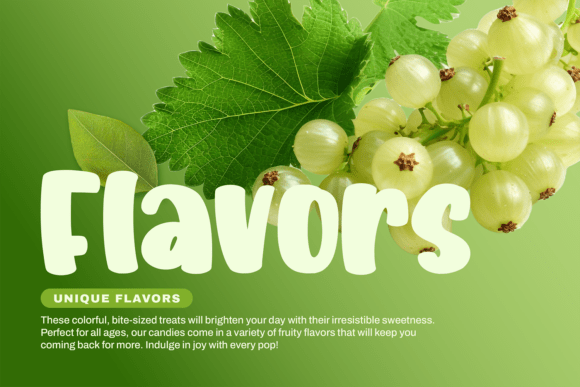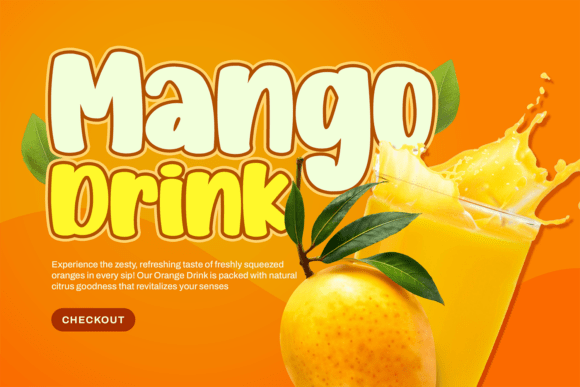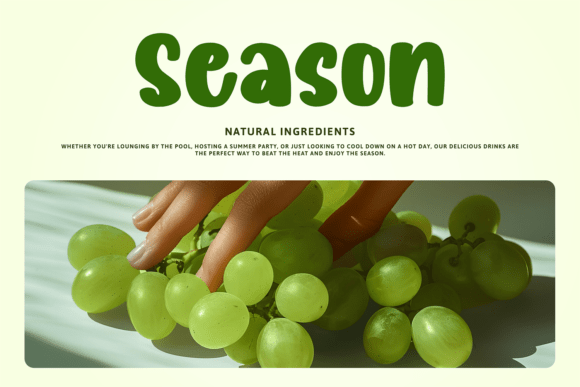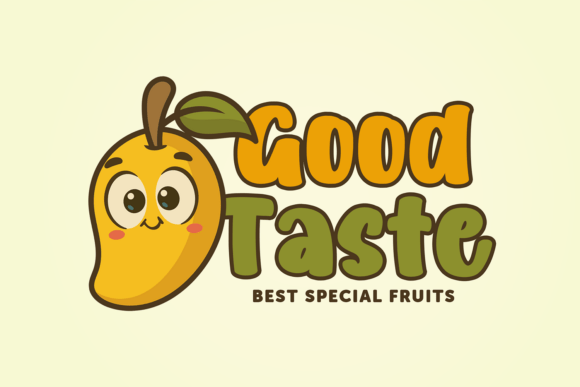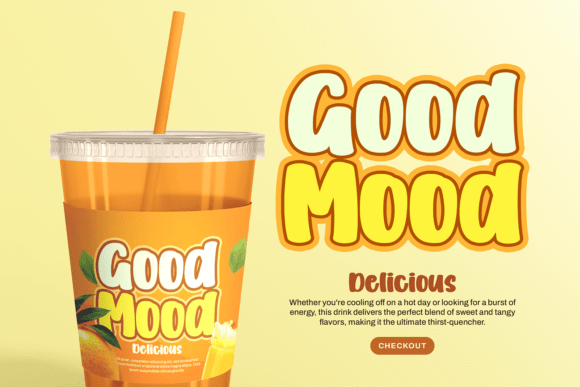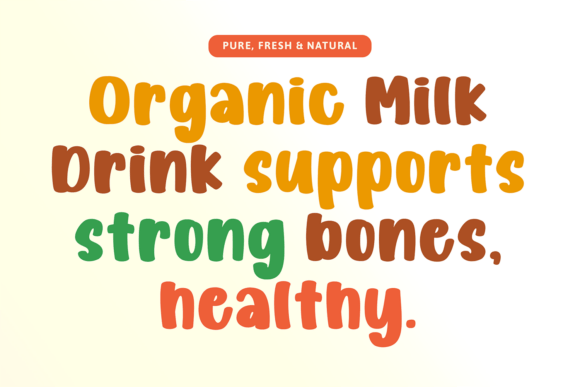
Unleash Your Creativity with Grapefruit Font: The Ultimate Display Typeface
In the world of typography, few fonts manage to strike a balance between boldness and playfulness quite like Grapefruit Font. This charming display typeface is designed to capture attention and infuse your creative projects with a touch of fun and freshness. Whether you’re a designer, crafter, or simply someone who appreciates the art of typography, Grapefruit Font is sure to delight.
The Perfect Blend of Boldness and Playfulness
Grapefruit Font is more than just a pretty face – it’s a versatile typeface that combines the best of both worlds. Its bold presentation makes it perfect for headlines, titles, and attention-grabbing displays, while its playful, rounded shapes add a touch of whimsy and friendliness. This unique blend of characteristics makes Grapefruit Font an ideal choice for a wide range of creative projects, from food and beverage branding to vibrant packaging designs.
Endless Possibilities for Creative Projects
So, what can you do with Grapefruit Font? The possibilities are endless! Here are just a few ideas to get you started:
- Food and Beverage Branding: Use Grapefruit Font to create eye-catching logos, labels, and packaging for your favorite foods and drinks. Its friendly, approachable vibe is sure to appeal to customers of all ages.
- Children’s Products: Add a touch of whimsy and fun to your children’s products, such as toys, books, and educational materials. Grapefruit Font is perfect for kids’ brands that want to convey a sense of playfulness and adventure.
- School-Themed Materials: Create engaging and interactive learning materials, such as posters, worksheets, and activity sheets, with Grapefruit Font. Its bold, cheerful design is sure to capture the attention of students and teachers alike.
- Digital Banners and Posters: Use Grapefruit Font to create stunning digital banners and posters that grab attention and drive engagement. Its bold, colorful design is perfect for advertising, promotions, and events.
Why Choose Grapefruit Font?
So, what sets Grapefruit Font apart from other display typefaces? Here are just a few reasons why designers and crafters love working with this charming font:
- Unique Character: Grapefruit Font has a one-of-a-kind personality that sets it apart from more traditional typefaces. Its bold, playful design is sure to make your projects stand out.
- Versatility: Whether you’re working on a food label, a children’s book, or a digital banner, Grapefruit Font is the perfect choice. Its versatility makes it easy to use in a wide range of creative projects.
- Easy to Read: Despite its bold, playful design, Grapefruit Font is surprisingly easy to read. This makes it perfect for headlines, titles, and short paragraphs of text.
Tips for Using Grapefruit Font
Ready to unleash your creativity with Grapefruit Font? Here are a few tips to get you started:
- Experiment with Colors: Grapefruit Font looks amazing in a wide range of colors. Experiment with different hues and combinations to find the perfect look for your project.
- Play with Size: Don’t be afraid to experiment with different font sizes. Grapefruit Font looks great in both large and small sizes, making it perfect for headlines, titles, and body text.
- Mix and Match: Try pairing Grapefruit Font with other fonts to create a unique and eye-catching design. Its bold, playful design makes it the perfect choice for pairing with more traditional typefaces.
| Author | Mozatype |
In conclusion, Grapefruit Font is a versatile and charming display typeface that’s perfect for creative projects that demand a touch of fun and freshness. Its bold, playful design makes it ideal for food and beverage branding, children’s products, school-themed materials, and digital banners. With its unique character, versatility, and ease of use, Grapefruit Font is sure to become a favorite among designers and crafters. So why wait? Unleash your creativity with Grapefruit Font today and see the difference it can make in your next project!